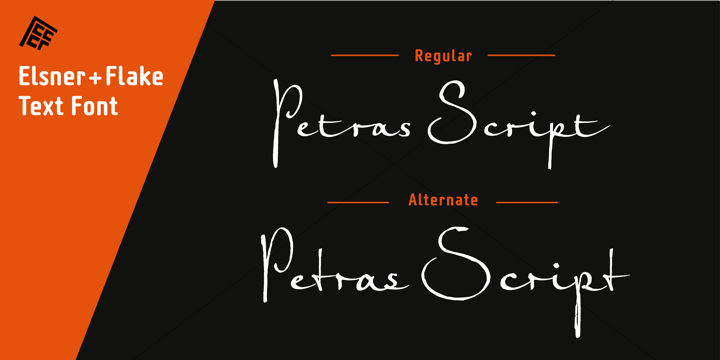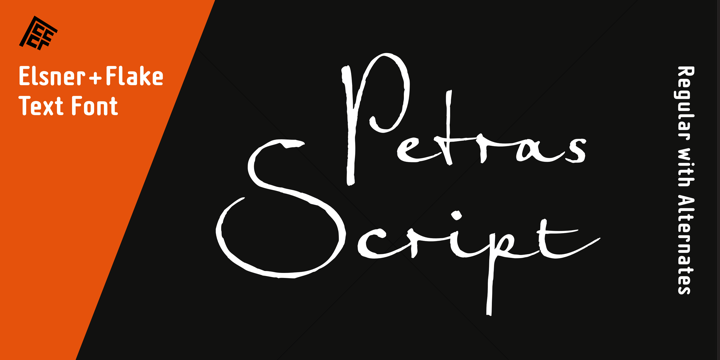
Petras Script EF
Petras Script EF Font Family
Petras Script, the first digital script font created by the calligrapher Petra Beiße, has, for many years, met with worldwide success. Now the font is complemented with an alternate character set, which gives designers more flexibility and adds a personal touch to the font.